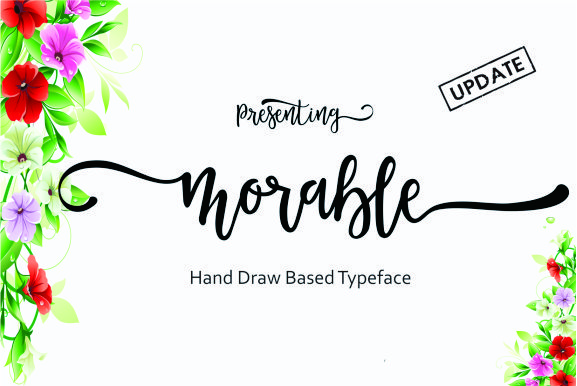
Unleash the Enchanting Appeal: Morable's Alluring Handwritten Script
Step into a world of captivating handwritten elegance with Morable, the script font that transforms your designs into works of art. Its enchanting strokes, reminiscent of a skilled calligrapher's touch, infuse your creations with a touch of warmth and personality.
With Morable, you can weave tales of love, joy, and inspiration. Its graceful curves and playful flourishes add a touch of whimsy to invitations, wedding stationery, branding, and social media posts. Let Morable be your muse as you craft designs that resonate with your audience on a deeper level.
Explore the Endless Possibilities of Morable:
- Captivating Headlines: Let Morable's bold presence command attention in your headlines, grabbing readers' eyes and inviting them to delve into your content.
- Mesmerizing Logos: Create logos that exude sophistication and charm, leaving a lasting impression on your customers. Morable's unique style adds a touch of elegance that sets your brand apart.
- Enchanting Invitations: Design invitations that evoke a sense of wonder and anticipation. Morable's graceful lines and playful touches create an inviting atmosphere that sets the tone for your special event.
- Heartwarming Social Media Posts: Capture the hearts of your followers with captivating social media posts adorned with Morable's alluring script. Its warm and inviting style fosters engagement and builds a loyal community around your brand.
Embrace the Magic of Morable Today:
Morable is more than just a font; it's an experience. Its enchanting handwritten style has the power to transform your designs into something truly extraordinary. Download Morable today and embark on a journey of creativity, where your imagination knows no bounds.